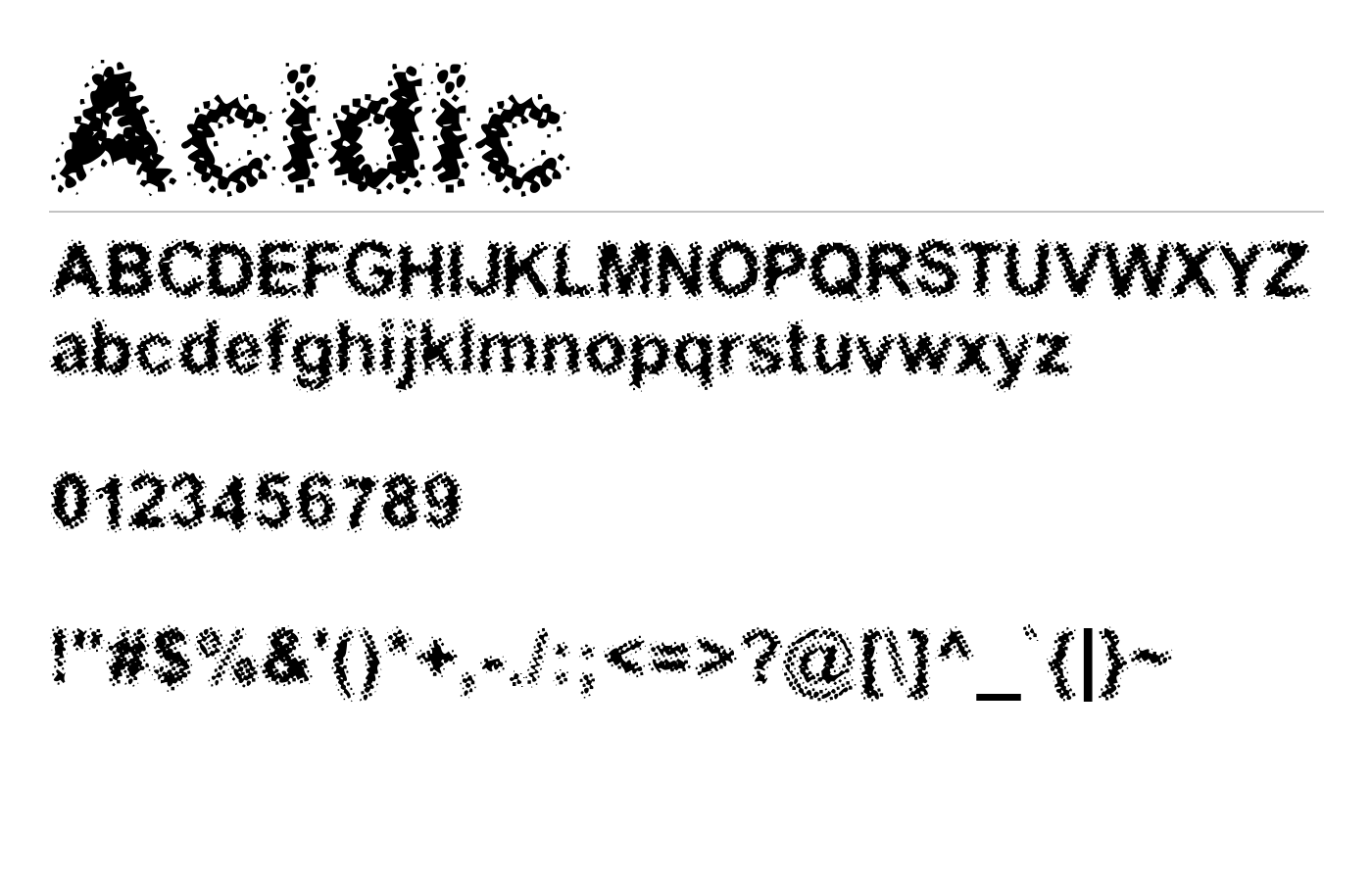
Acidic Font is a playful and dynamic sans serif typeface featuring a dotted, splattered texture that gives it a lively, almost electric feel. Its regular weight and medium width, combined with the textured edges, make it ideal for eye-catching headlines and creative projects that need a unique, informal look. This font works especially well in posters, branding for edgy or youthful products, and any design seeking an energetic, distinctive style.
Acidic Font
About Acidic Font